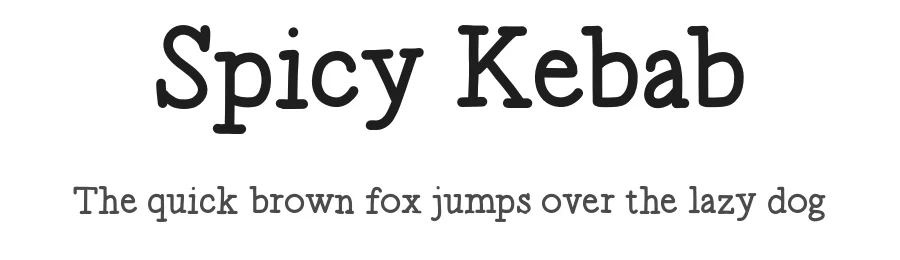
About Diglossia Std Font
Diglossia Std is a decorative font designed by Jonathan Bennett. It includes 276 glyphs, a regular weight, OTF (CFF) format, and 225 languages. Diglossia Std is free to download; check the license details on this page before commercial use. Decorative fonts like Diglossia Std work best for logos, posters, packaging, and standout headlines.
Diglossia Std Font is a decorative font that shines as a display or heading face. Pair it with a clean sans-serif or serif font for body text β the contrast creates a clear hierarchy while the two styles stay balanced and easy to read.